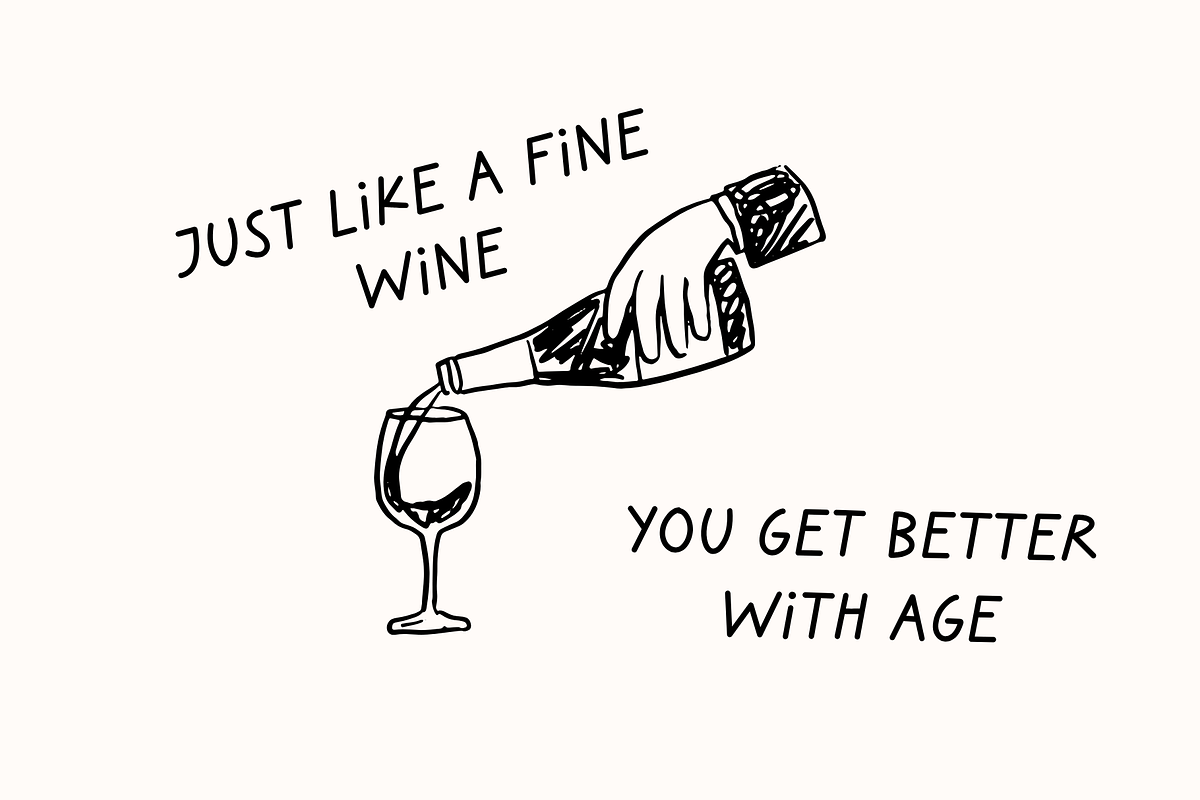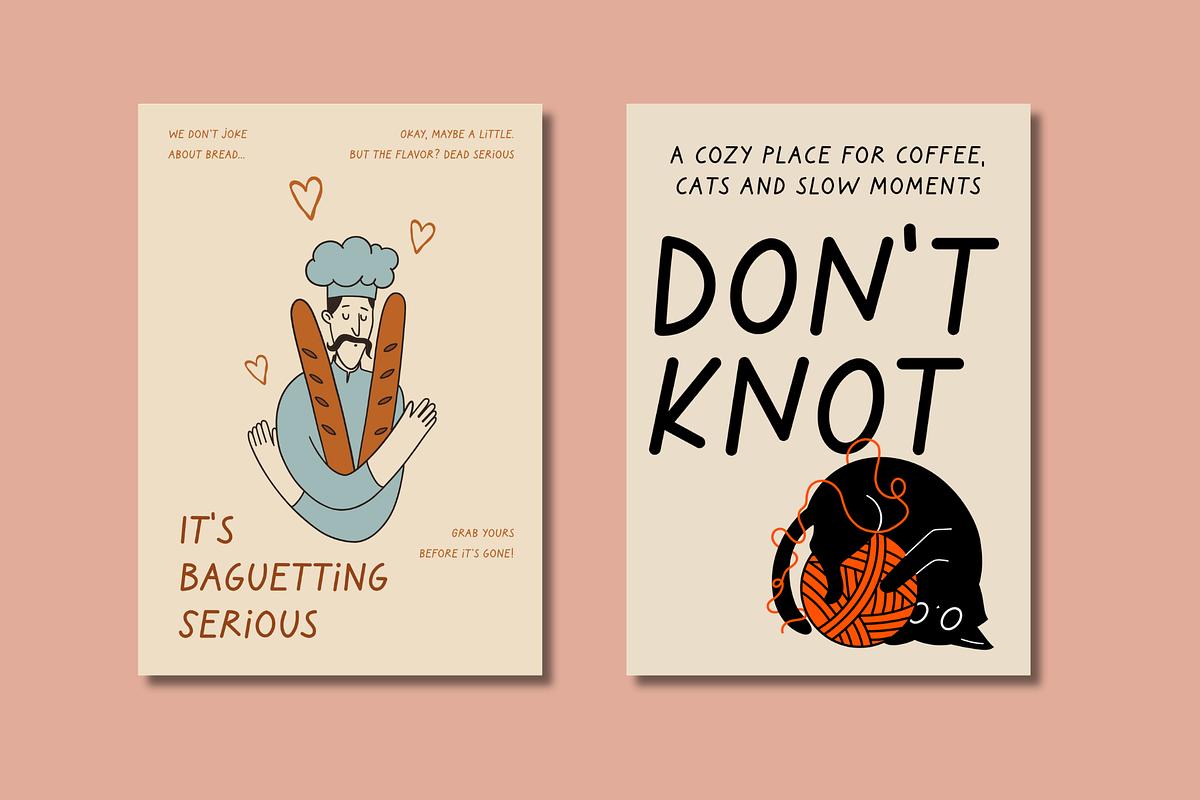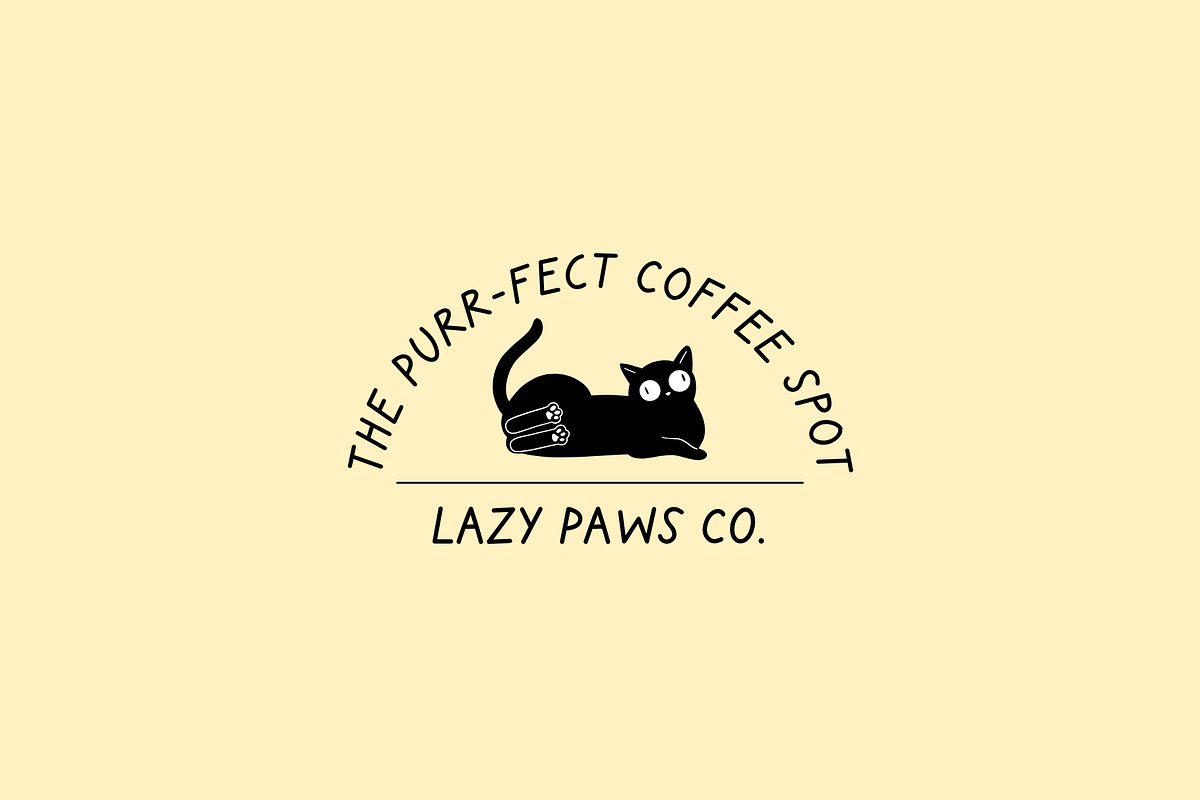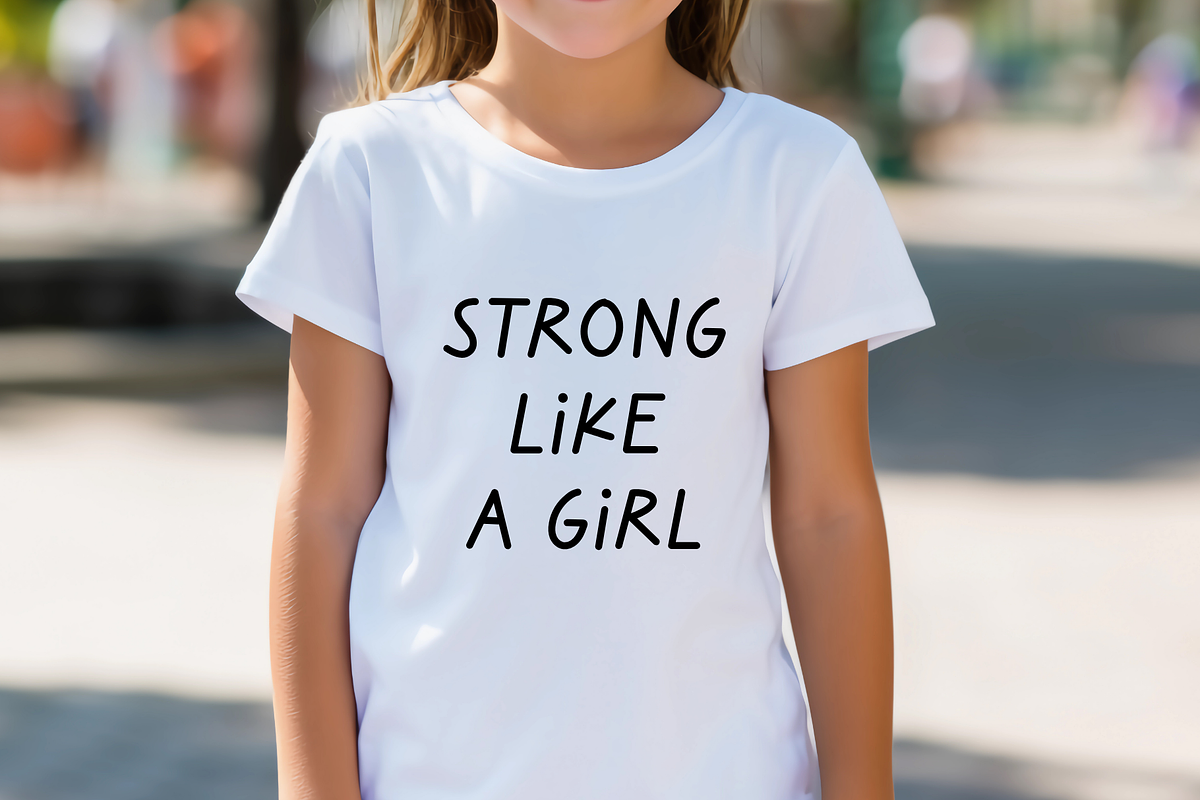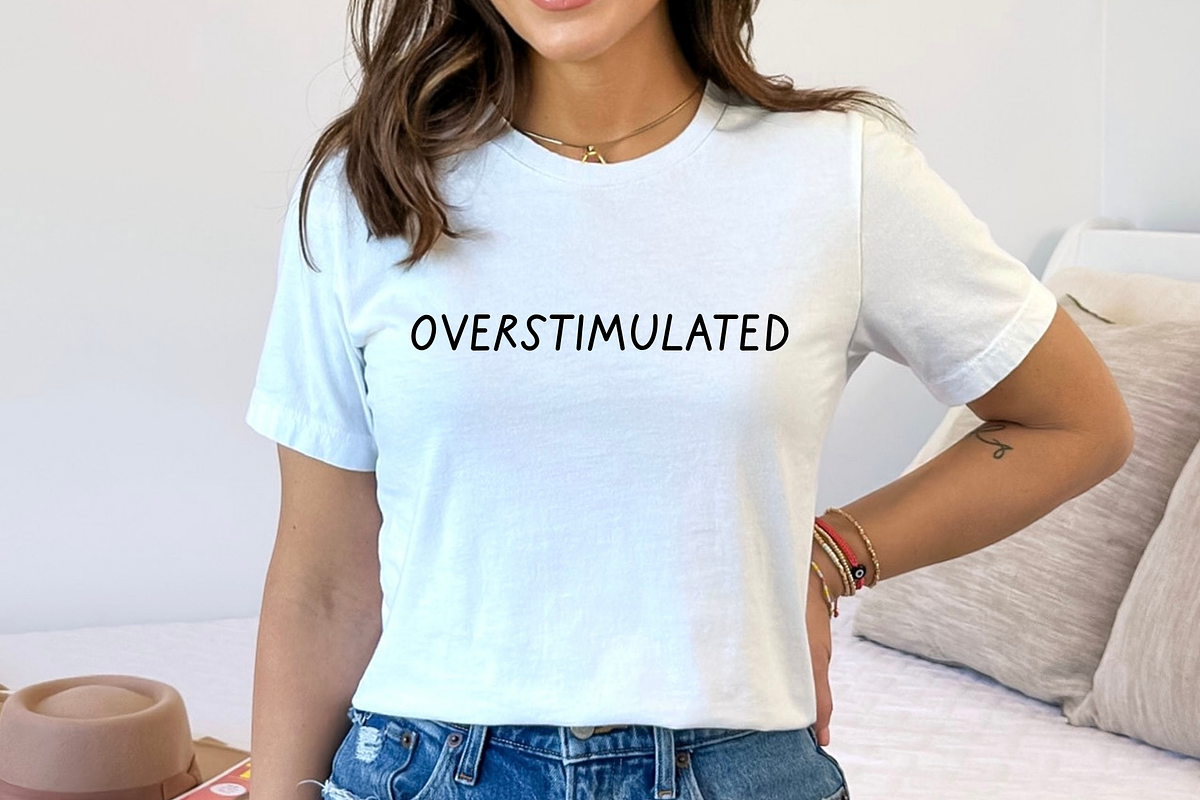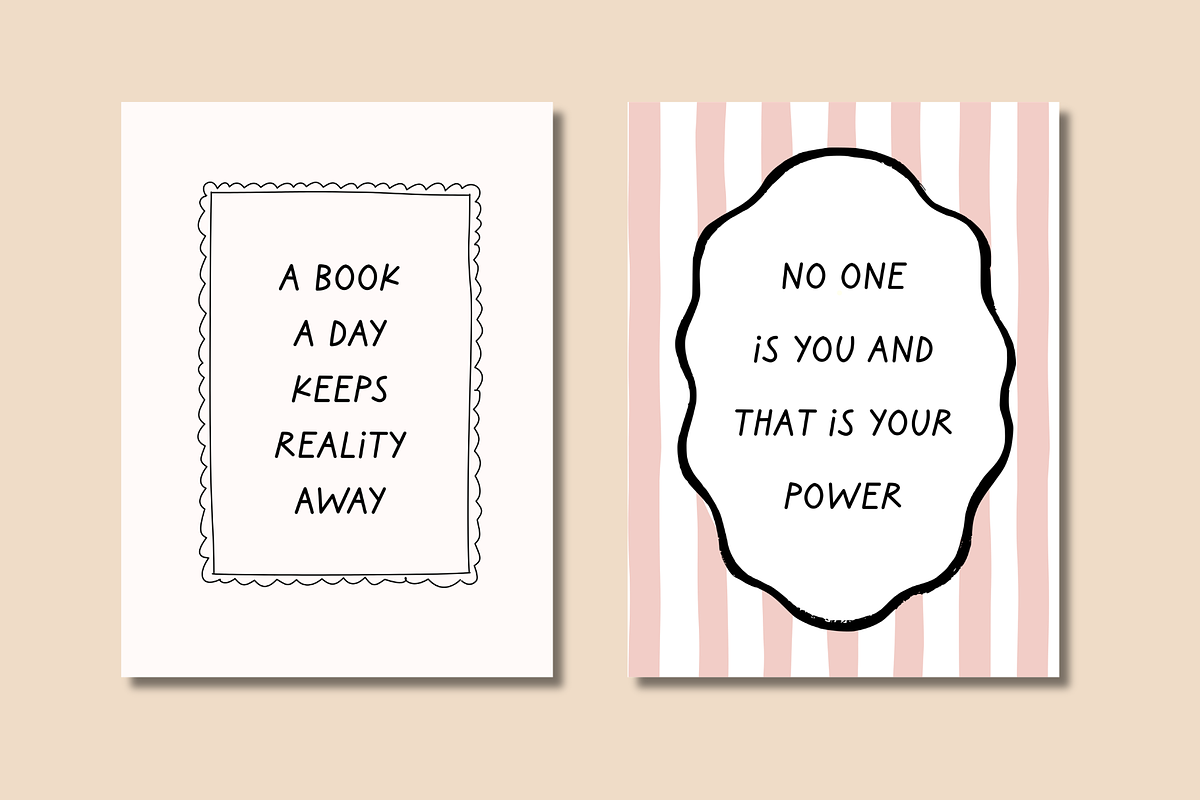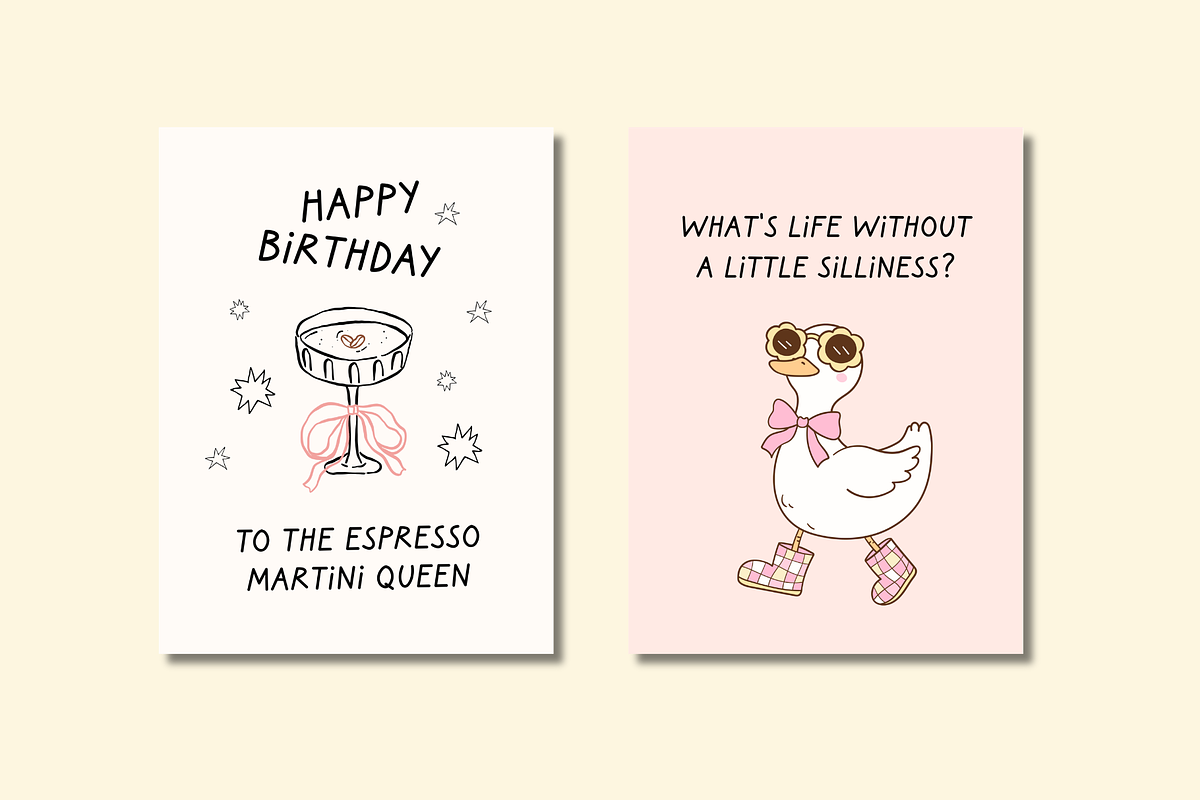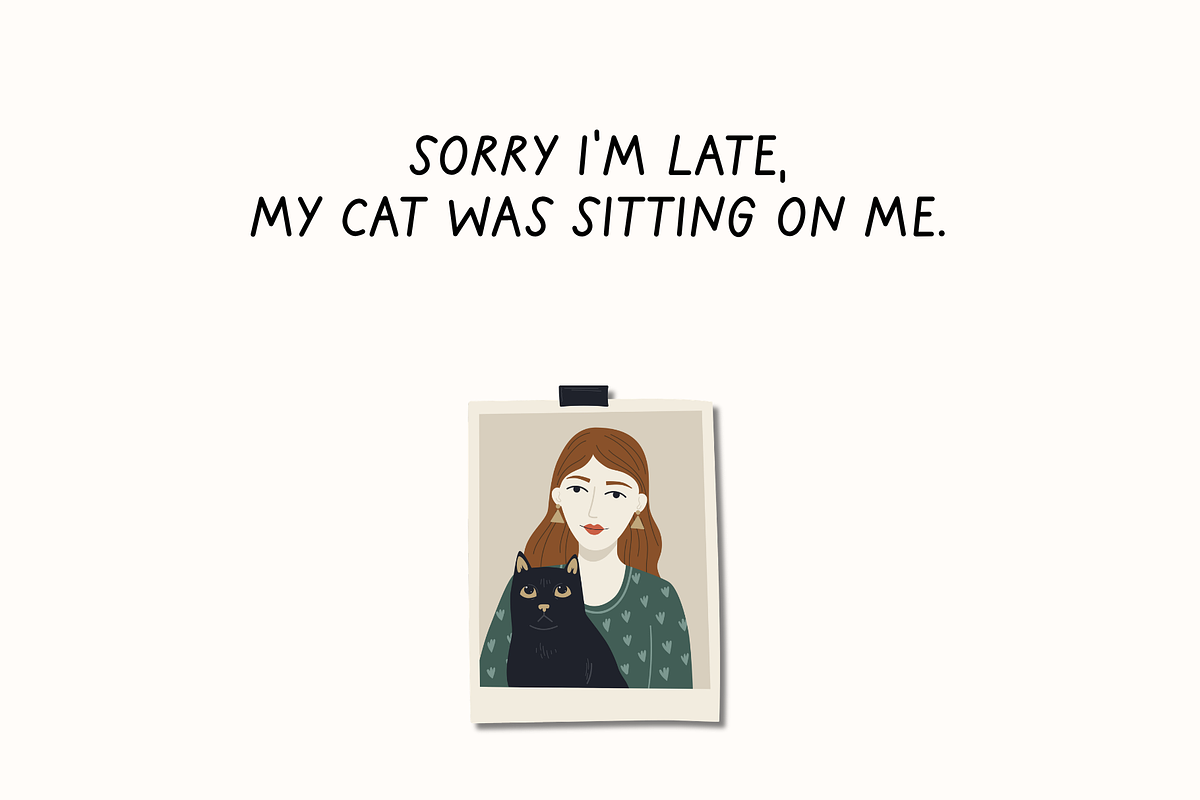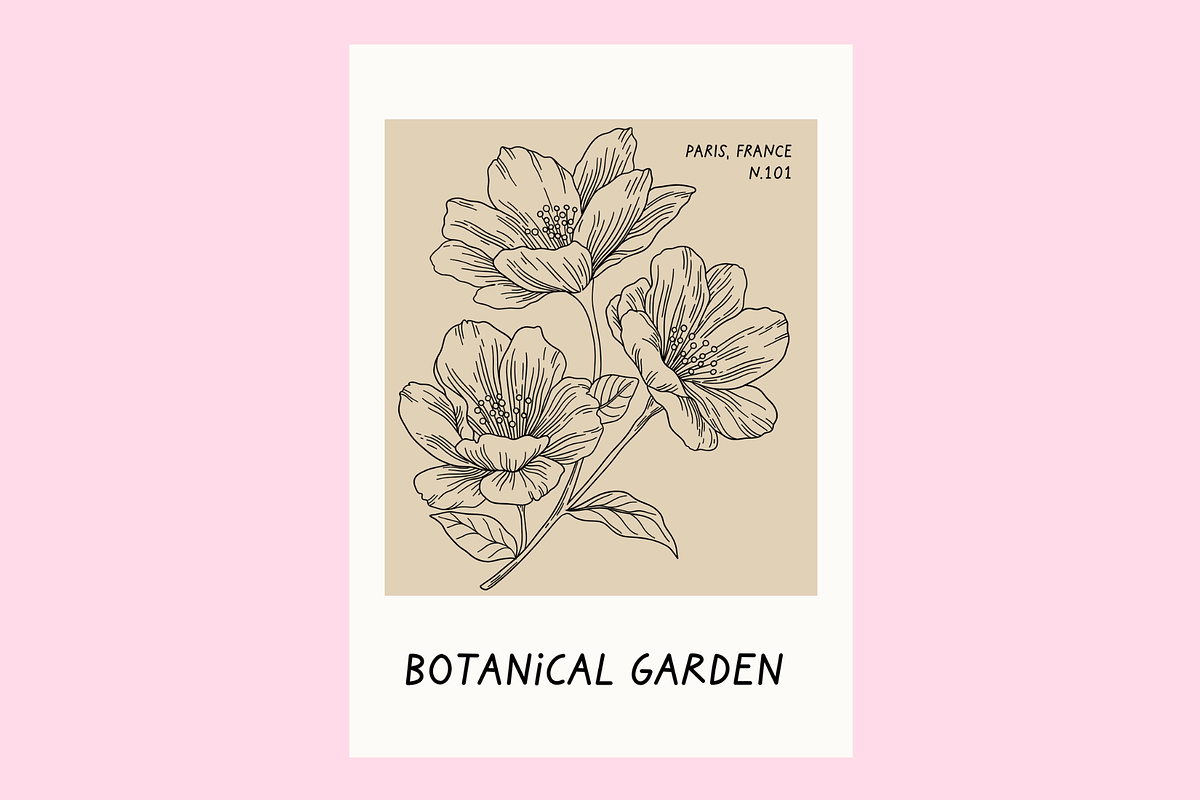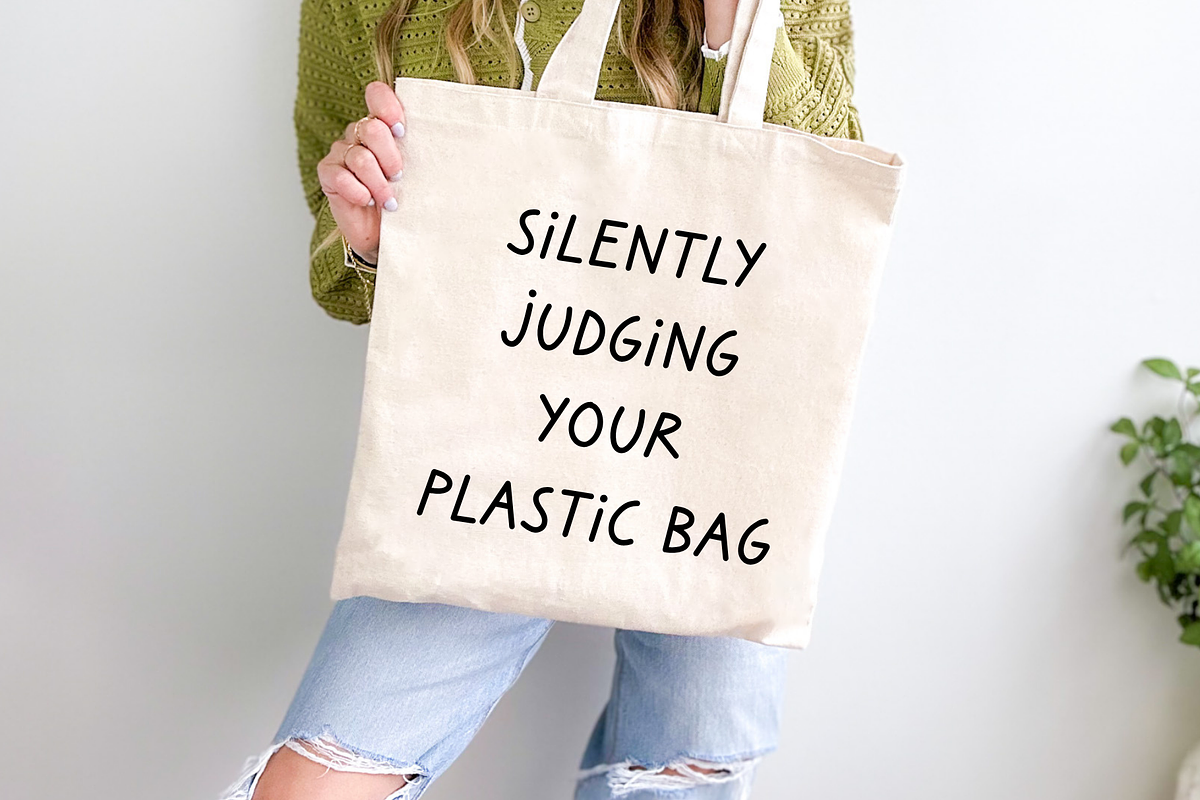
Powered by Sticky Notes
Meet Powered by Sticky Notes, a casual handwritten font for big ideas, little reminders, and to-do lists that keep getting longer. Its simple strokes, rounded ends, and slightly slanted letters give it an easygoing feel.
Use it for cheeky quotes, planners, greeting cards, packaging, or tote bags that say what you’re thinking. It looks right at home alongside doodles and illustrations, bringing the charm of a quick handwritten note to whatever you’re making.